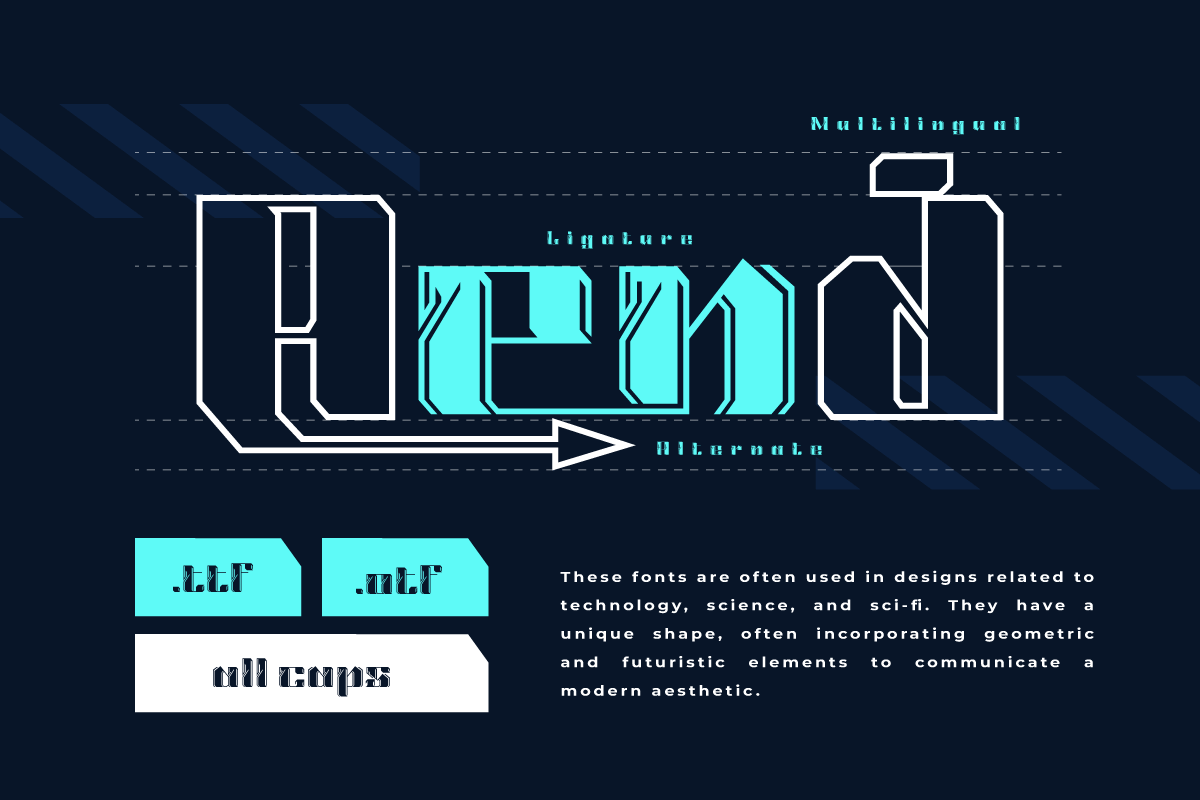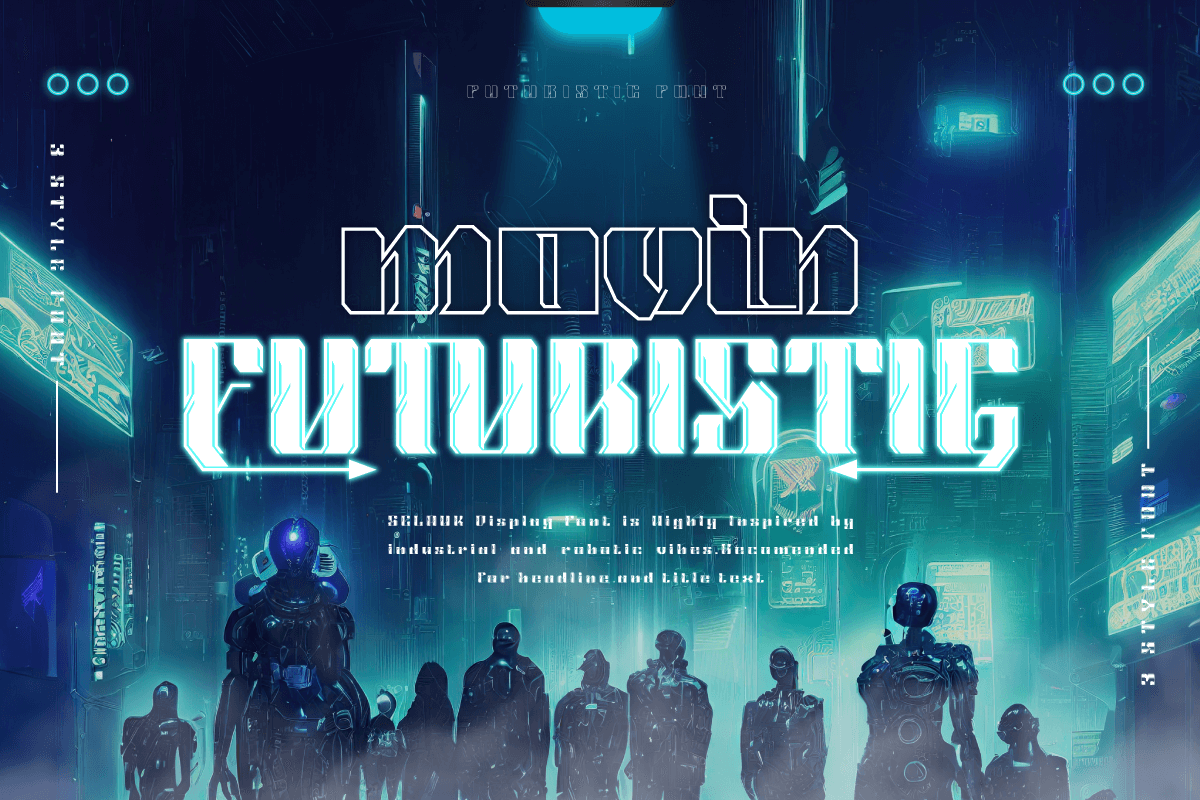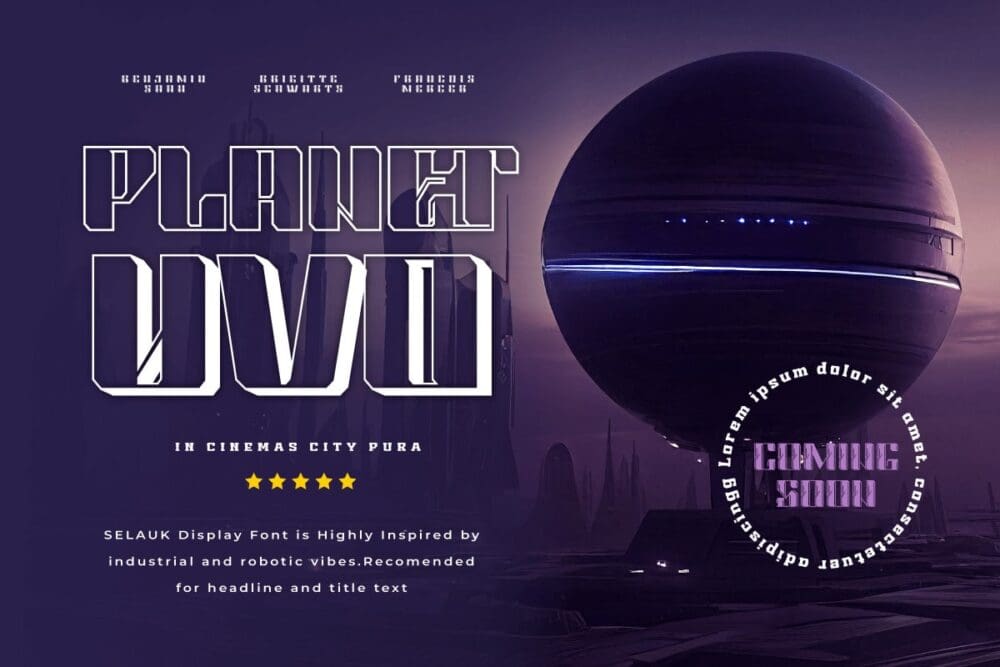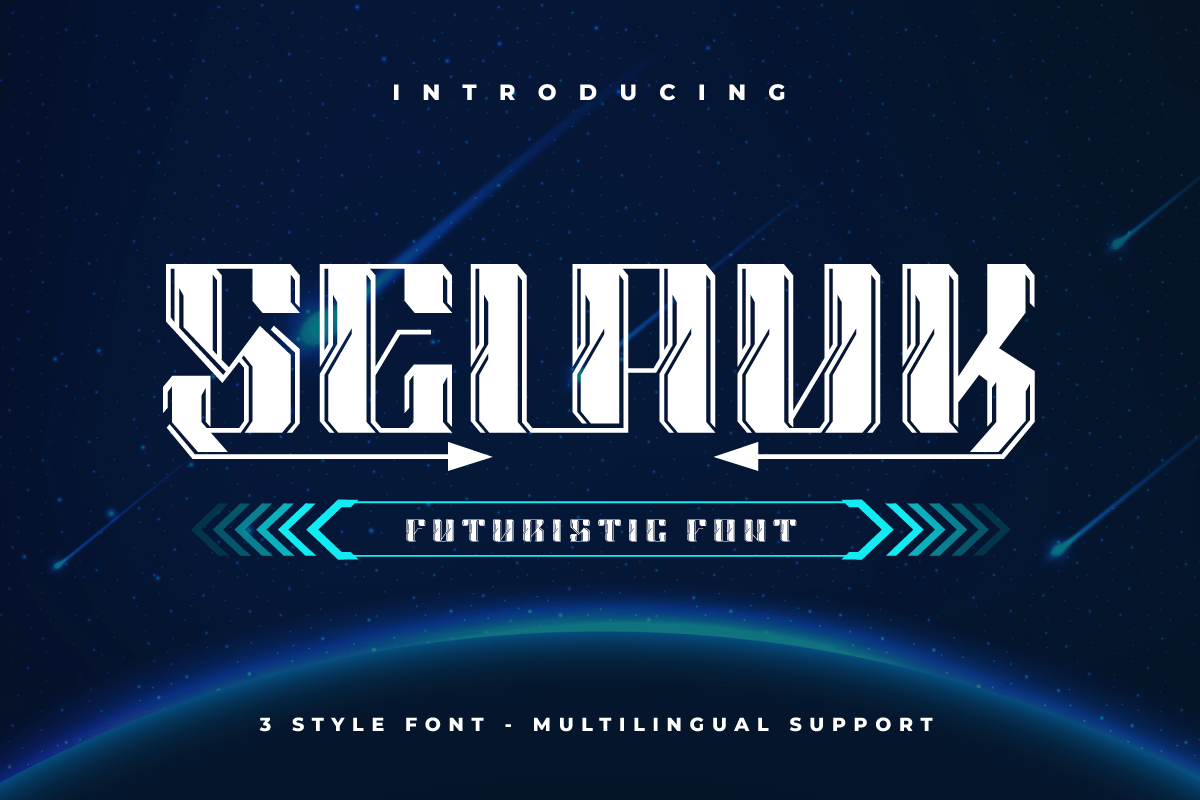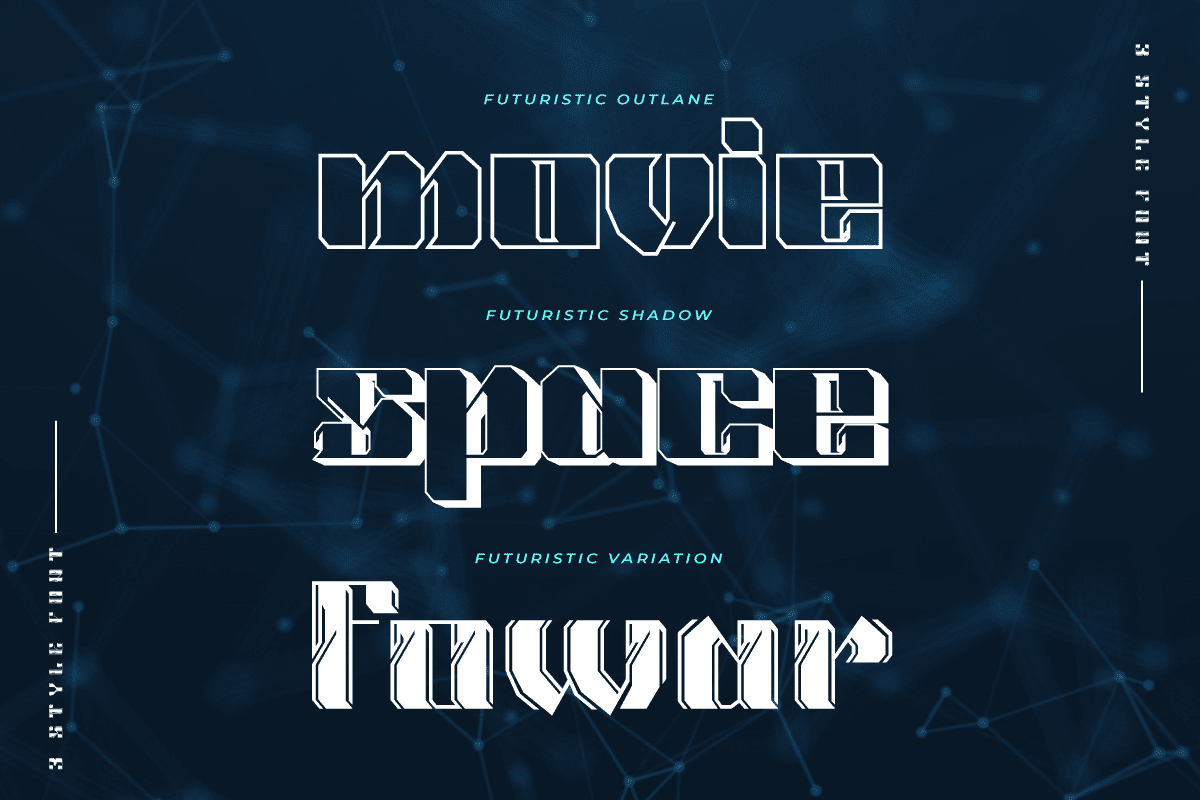
Selauk Font
Selauk is a window into the futuristic world of typography’s future. With this theme, this font is the ideal answer for projects that need a touch of modern, sci-fi, and future atmosphere. Selauk represents unrivaled visual innovation. Each letter is a work of art in its own right, embracing a modern style with a distinctly futuristic twist. However, Selauk is not just appearance. This font exudes excellent, alluring features. Ligature and alternate give you the freedom to experiment with creative and original designs.